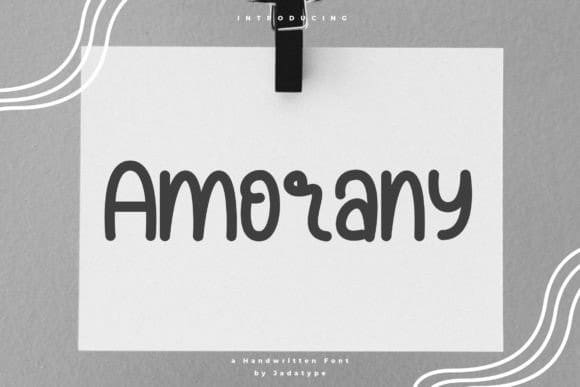
Amorany Hand Font
Amorany Hand Font is a handwriting font with monoline lines. It gives the impression of being natural, simple, friendly, and comfortable to see., and it can be used for your designs, social media, print writing, crafts, and others.